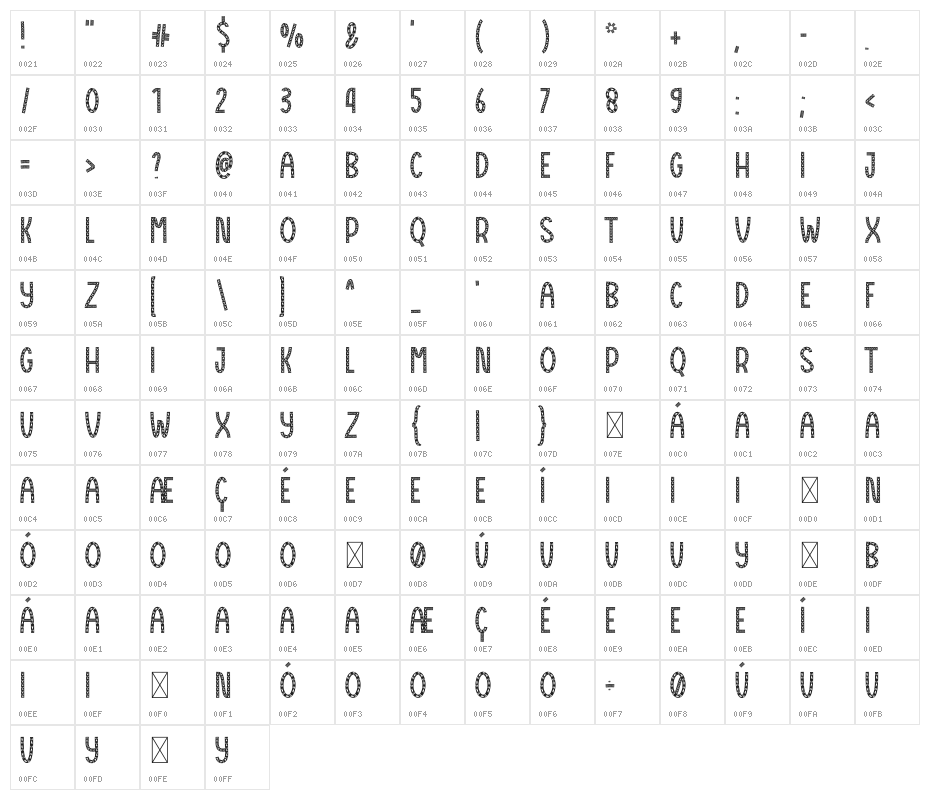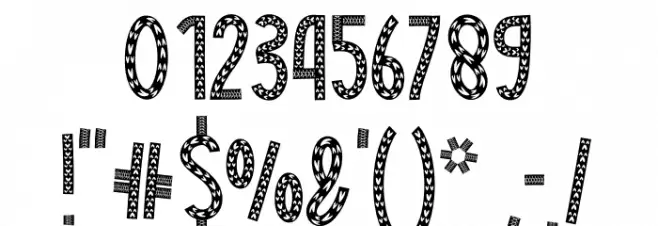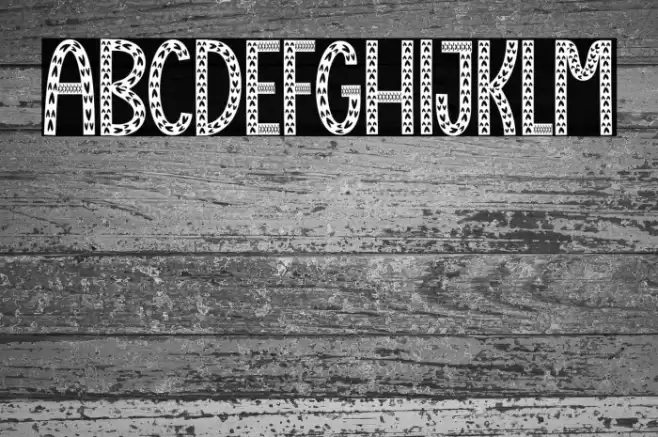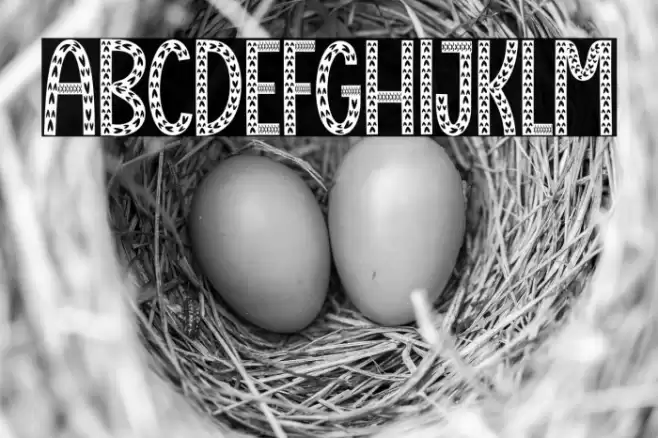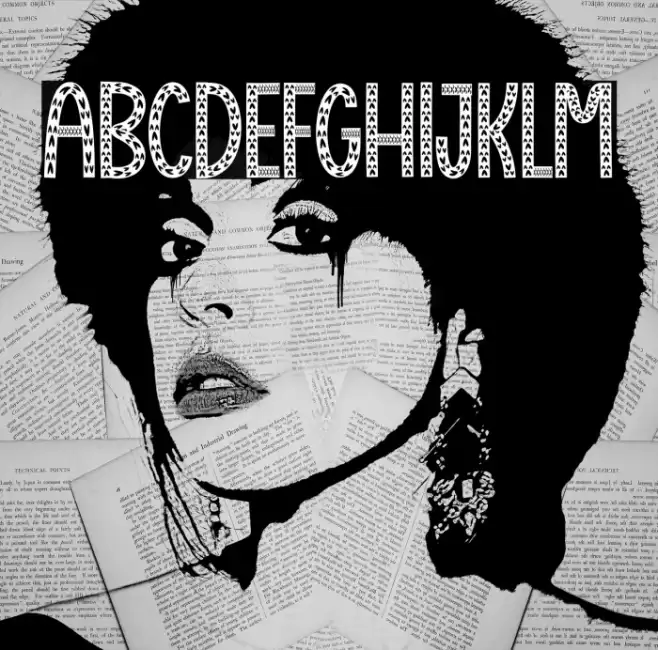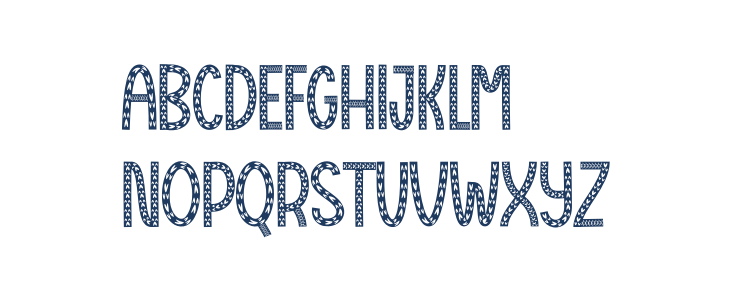
Christmas Of Love Font
Christmas Of Love Description
This font features a playful and festive design, characterized by intricate patterns within each letter. The uppercase and lowercase letters, along with numbers and special characters, are adorned with decorative elements reminiscent of holiday motifs. The overall appearance is bold and eye-catching, making it ideal for seasonal projects. The unique style incorporates a sense of whimsy and joy, perfect for capturing the spirit of celebration. The font's decorative nature makes it stand out, with each character offering a distinct visual appeal that is both charming and engaging.
| Proposed Projects | Ideal for holiday cards, festive banners, seasonal advertisements, and decorative posters. |